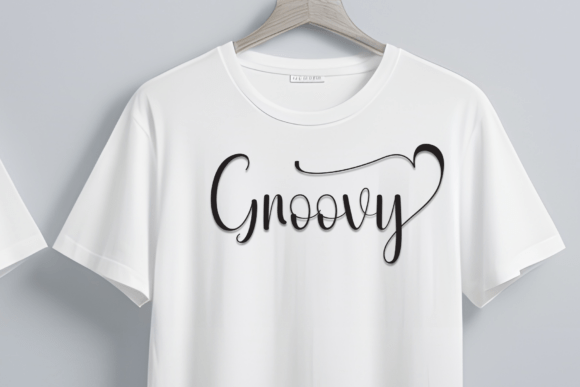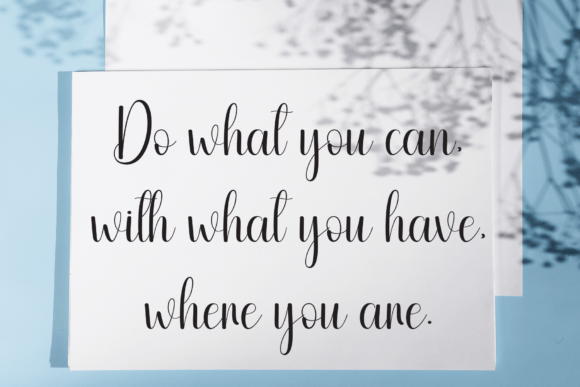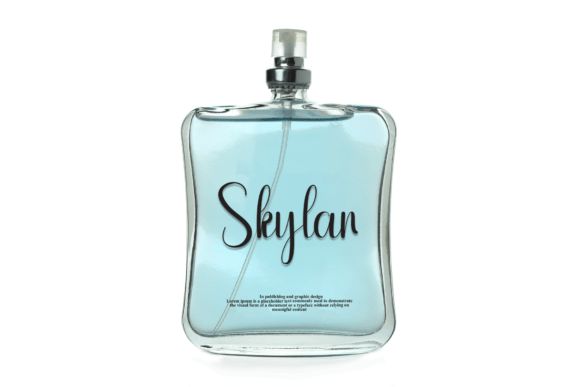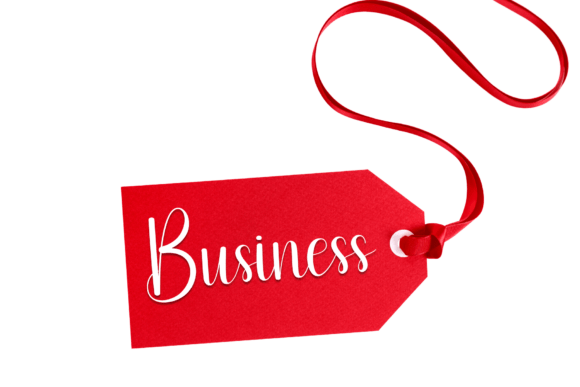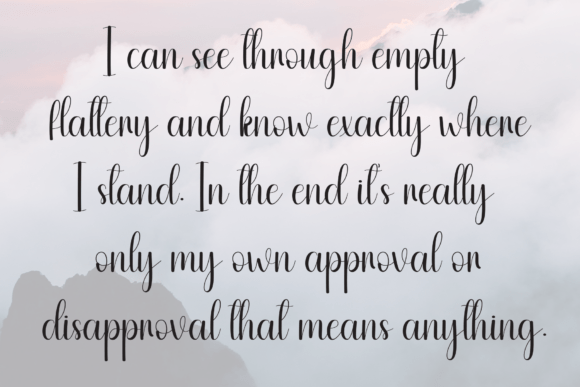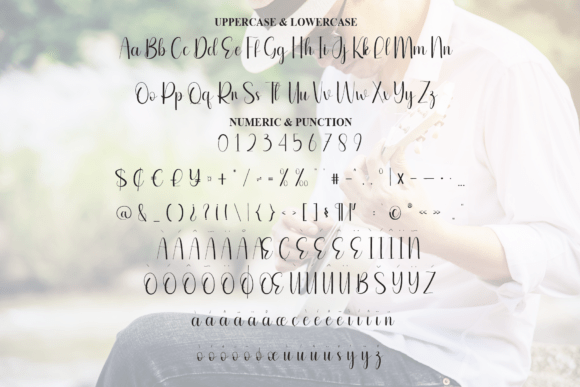
The Perfect Melody for Your Design
There’s nothing quite like the feeling of finding the perfect font for a project. It’s like stumbling upon a hidden treasure, and suddenly, your entire design begins to come together in perfect harmony. For many designers, this moment of discovery is the highlight of the creative process.
Enter Chanting Font, a stylish handwritten script font that effortlessly combines elegance with modern flair. This versatile typeface is perfect for branding, invitations, and social media, adding a personal, refined touch to any project. With its flowing strokes and organic curves, Chanting Font brings warmth and sophistication to any design, making it a valuable addition to any designer’s toolkit.
Whether you’re working on a high-end branding project or a whimsical social media campaign, Chanting Font is sure to add a touch of effortless charm to your designs.
Key Features of Chanting Font
- Font Family: Chanting is a font family that includes multiple styles, including Regular, Italic, Bold, and Bold Italic.
- Character Set: The font includes a wide range of characters, including Latin, Greek, and Cyrillic alphabets, as well as punctuation and symbols.
- Unique Characteristics: Chanting Font features a distinctive, hand-drawn design with a calligraphic feel, making it suitable for creative and artistic applications.
Review of Chanting Font
I’ve had the chance to experiment with the Chanting Font, and I must say it’s an intriguing choice for designers.
- Unique aesthetic: The Chanting Font has a distinctive, hand-painted look that can add a touch of personality to any project.
- Cultural significance: This font draws inspiration from Indian and Middle Eastern calligraphy, which can be a great choice for cultural or heritage-based projects.
- High legibility: Despite its ornate appearance, the Chanting Font is surprisingly easy to read, making it a great choice for body text.
- Limited font sizes: The Chanting Font may not be suitable for extremely large or small font sizes, as its ornate details can become distorted.
- Lack of consistency: While the font is beautiful, its irregularities can make it challenging to use in projects that require consistent typography.
The Chanting Font is a great choice for designers who want to add a touch of cultural flair and uniqueness to their projects. However, its limitations may make it less suitable for projects that require strict consistency or flexibility in font sizes. Overall, I’d recommend the Chanting Font for specific, cultural-based projects or for designers who want to push the boundaries of traditional typography.
Tips for Getting the Most Out of Chanting Font
Experiment with different font sizes and styles to create visually appealing text elements.
Combine the Chanting font with other fonts to create a unique and eye-catching design.
Use the font in conjunction with graphics and images to create a dynamic and engaging visual experience.
Common Use Cases for Chanting Font
Wedding invitations and decorations
Spiritual or meditation
Alternatives to Chanting Font for Designers
Q: Can I modify or customize Chanting Font to suit my specific design needs?